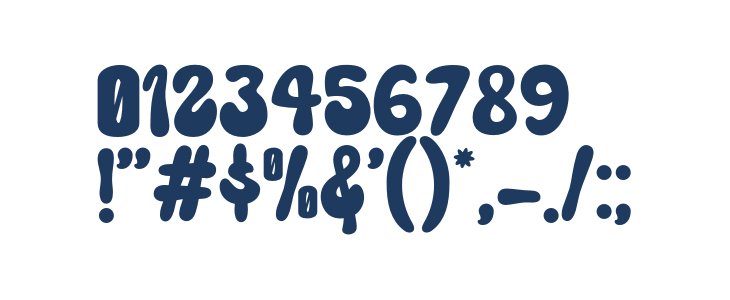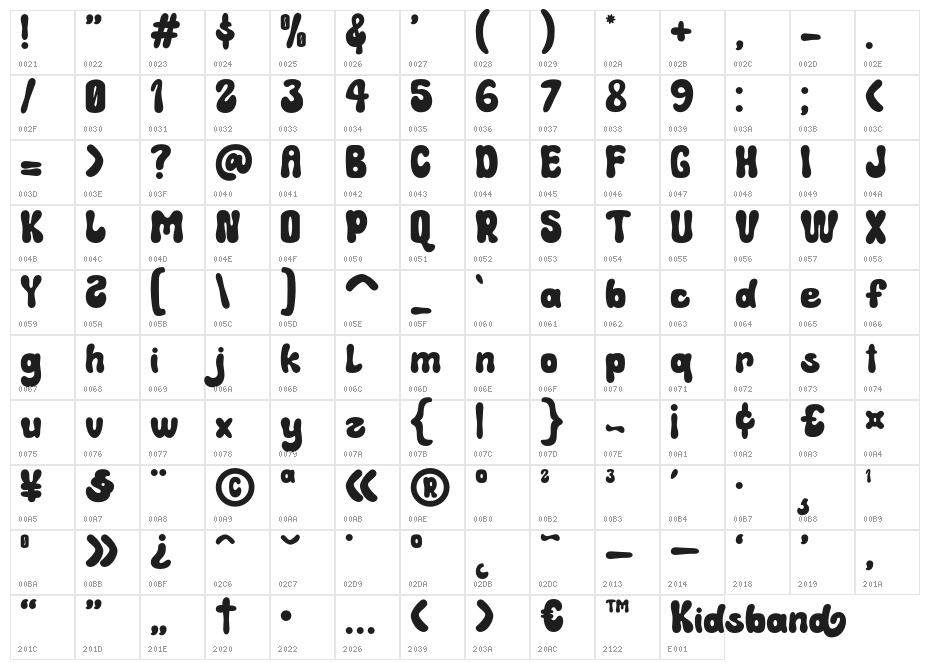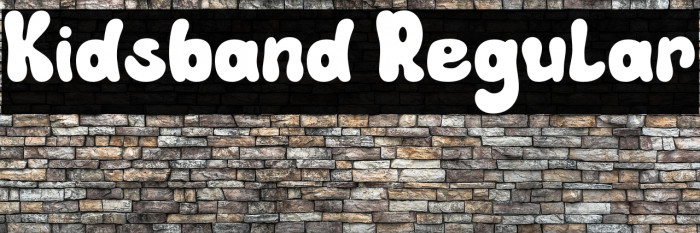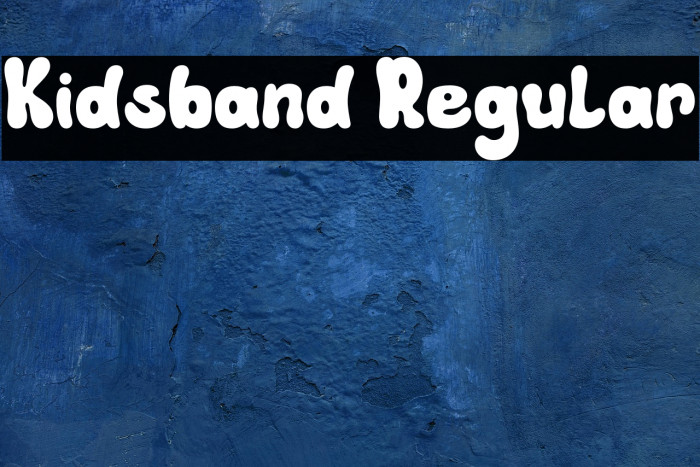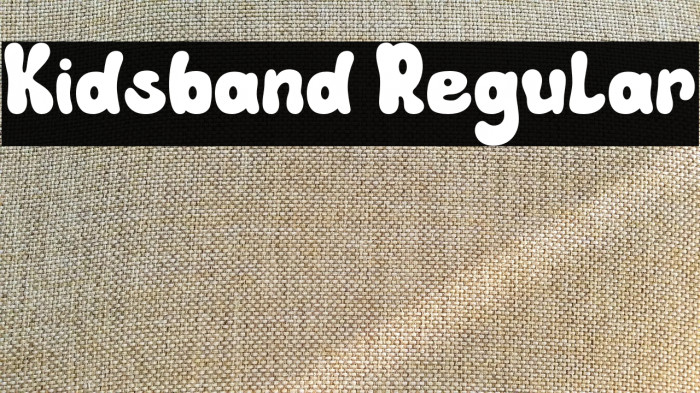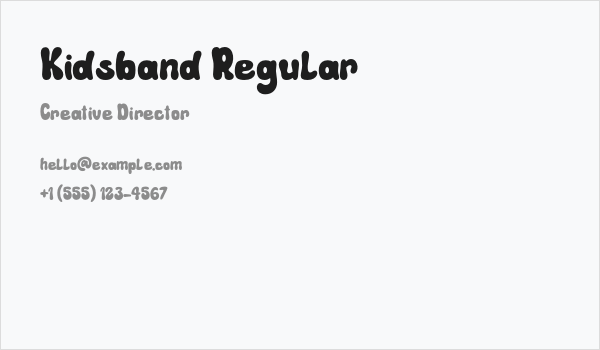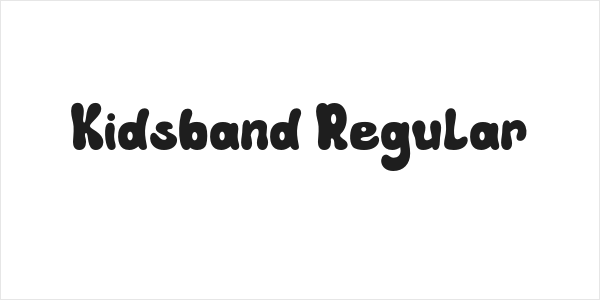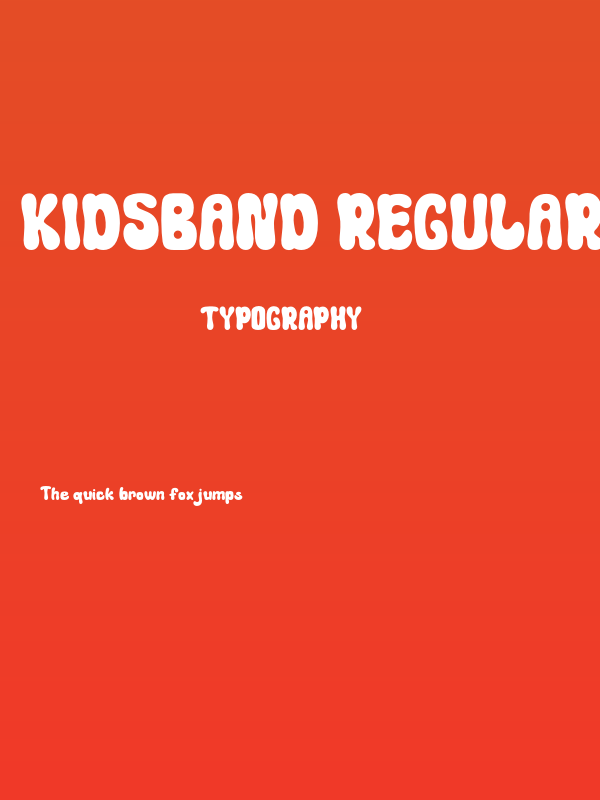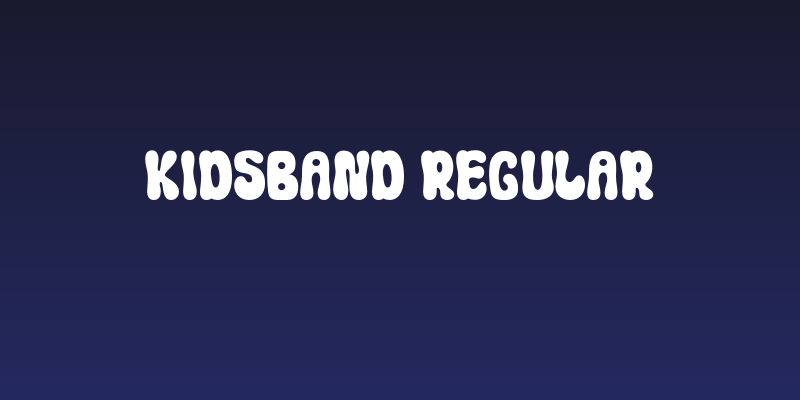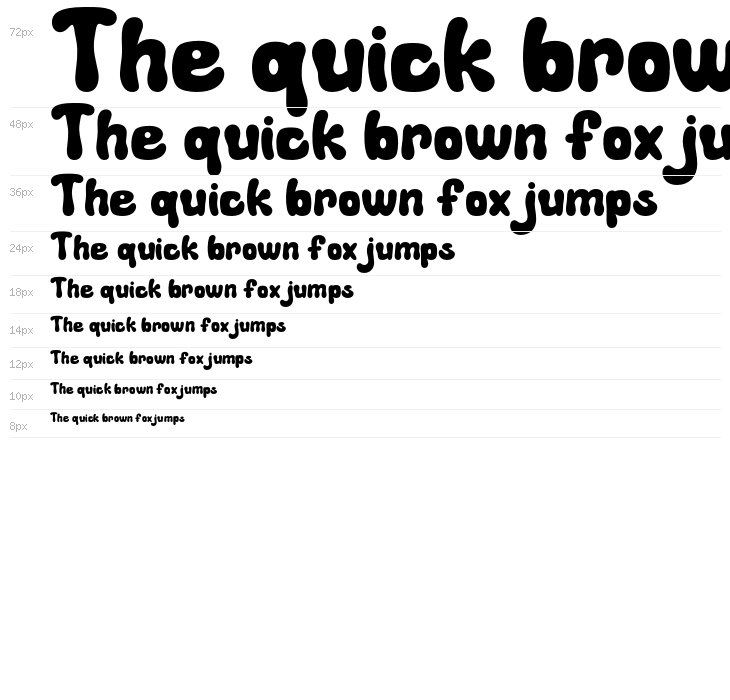
Kidsband Regular Font
Kidsband Regular Description
This playful and whimsical font features bold, rounded characters with a bubbly appearance. The letters are thick and have a cartoonish quality, making them highly suitable for children's materials. The uppercase and lowercase letters maintain a consistent style, with a slightly exaggerated, fun look. Numbers and special characters follow the same design, ensuring a cohesive appearance across all text. The font's design is approachable and friendly, ideal for capturing the attention of a younger audience.
| Use Case | Headlines, Logos, Children's materials |
| Proposed Projects | Ideal for children's books, educational materials, toy packaging, and playful branding. |